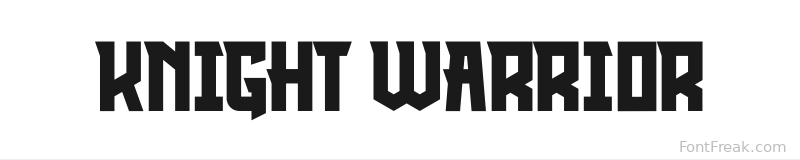
KNIGHT WARRIOR
About KNIGHT WARRIOR
The KNIGHT WARRIOR font by MaknaStudio is a striking display typeface that embodies the spirit of courage and valor. This decorative font features bold, angular letterforms reminiscent of medieval armor, making it an ideal choice for projects that require a sense of strength and adventure. The stroke weight is consistent, providing a robust appearance, while the sharp edges and geometric forms contribute to its warrior-like aesthetic. The spacing is well-balanced, ensuring readability even at larger sizes, and the overall design is characterized by its commanding presence.
This font is perfect for a variety of use cases. It shines in graphic novels and comic book covers, where its unique style can capture the attention of readers. Additionally, KNIGHT WARRIOR is an excellent choice for movie posters, particularly in the fantasy and action genres, as it evokes the themes of heroism and epic battles. Furthermore, it works well for themed events and parties, such as medieval fairs, where signage and promotional materials can benefit from its distinctive look. Small business owners in niche markets, such as gaming shops or escape rooms, can also leverage this font to create a brand identity that resonates with their target audience.
Graphic designers and content creators will find the KNIGHT WARRIOR font free download to be a valuable addition to their toolkit, offering a versatile and memorable option for their projects. It stands out not only for its visual impact but also for its ability to convey a narrative through typography. The combination of its bold design and thematic relevance makes it an exceptional choice for anyone looking to make a statement with their written content.